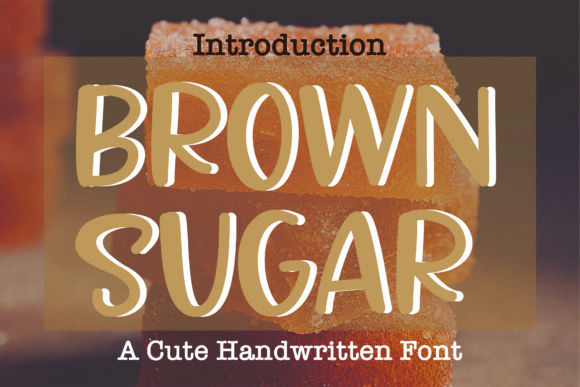
Brown Sugar Font: Elevate Your Designs with this Bold and Adaptable Display Font
The world of typography is vast and diverse, with countless font styles to choose from, each with its unique character and charm. Among these, the Brown Sugar font stands out as a neat, bold, and adaptable display font that can elevate any creation. In this article, we’ll delve into the features and benefits of the Brown Sugar font, exploring how it can become an incredibly valuable asset to your font library.
Key Features of Brown Sugar Font
- Bold and Eye-catching: The Brown Sugar font boasts a bold and eye-catching design, making it perfect for headlines, titles, and display text.
- Adaptable: This font is incredibly versatile, suitable for a wide range of topics, from fashion and beauty to technology and finance.
- Neat and Clean: The Brown Sugar font features clean lines and a neat design, ensuring that your text remains legible and easy to read.
- Display Font: As a display font, Brown Sugar is optimized for large text sizes, making it ideal for attention-grabbing headlines and titles.
The Many Uses of Brown Sugar Font
The Brown Sugar font is an incredibly asset to your font library due to its versatility. Here are some of the many ways you can use this font:
- Headlines and Titles: Use Brown Sugar to create bold and eye-catching headlines and titles for your blog posts, articles, and website content.
- Branding and Logo Design: The Brown Sugar font can be used to create unique and memorable logos, adding a touch of elegance and sophistication to your brand.
- Advertising and Marketing: This font is perfect for creating attention-grabbing ads and marketing materials, such as flyers, brochures, and posters.
- Social Media Graphics: Use Brown Sugar to create engaging social media graphics, including Facebook posts, Twitter headers, and Instagram stories.
The Benefits of Using Brown Sugar Font
So, why should you choose the Brown Sugar font for your design projects? Here are some of the benefits of using this font:
- Instant Recognition: The bold and eye-catching design of Brown Sugar font ensures that your text grabs attention and is instantly recognizable.
- Professional Look: This font adds a touch of professionalism and sophistication to your designs, making them perfect for business and commercial use.
- Easy to Read: Despite its bold design, the Brown Sugar font remains easy to read, even at smaller text sizes.
Tips for Using Brown Sugar Font Effectively
To get the most out of the Brown Sugar font, here are some tips for using it effectively:
- Use it Sparingly: While the Brown Sugar font is bold and eye-catching, it’s best to use it sparingly to avoid overwhelming your designs.
- Pair it with Other Fonts: Experiment with pairing Brown Sugar with other fonts to create visually appealing and harmonious designs.
- Adjust Font Size: Adjust the font size to achieve the desired impact, using larger text sizes for headlines and smaller text sizes for body text.
- Experiment with Colors: Try out different colors and color combinations to find the perfect match for your Brown Sugar font.
In conclusion, the Brown Sugar font is a neat, bold, and adaptable display font that can elevate any creation. With its many uses, benefits, and versatility, it’s an incredibly valuable asset to your font library. By following the tips outlined above, you can use the Brown Sugar font to create stunning designs that grab attention and leave a lasting impression.